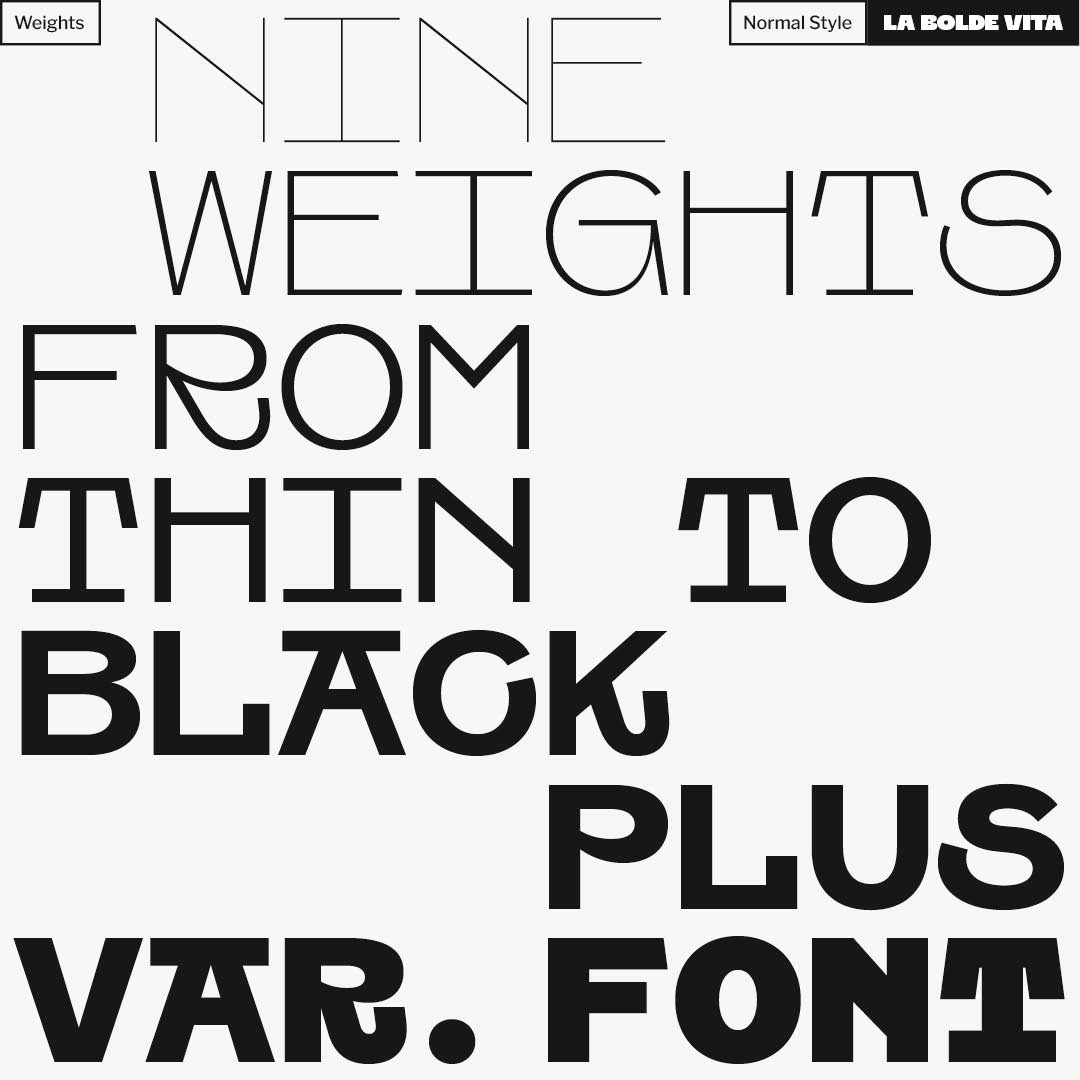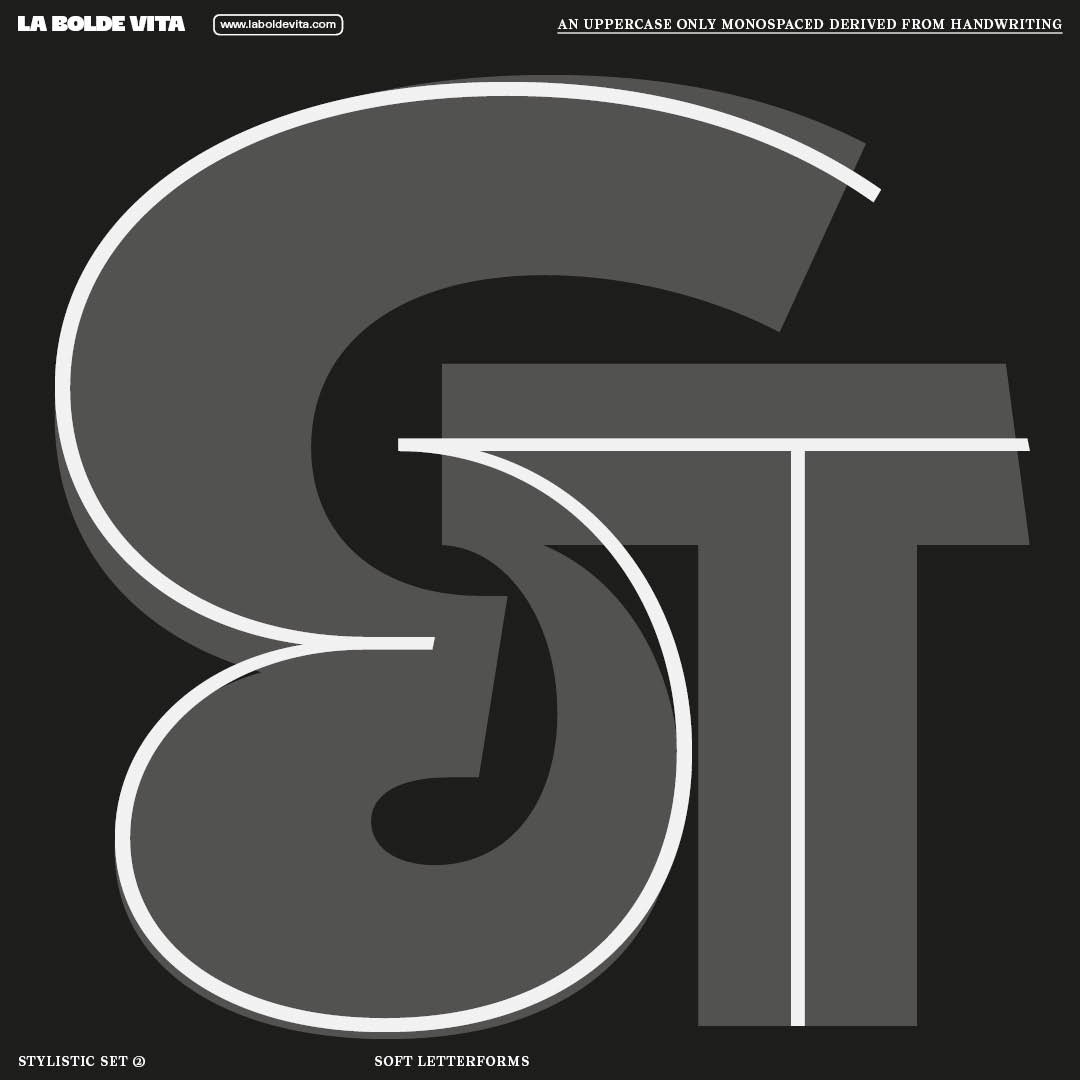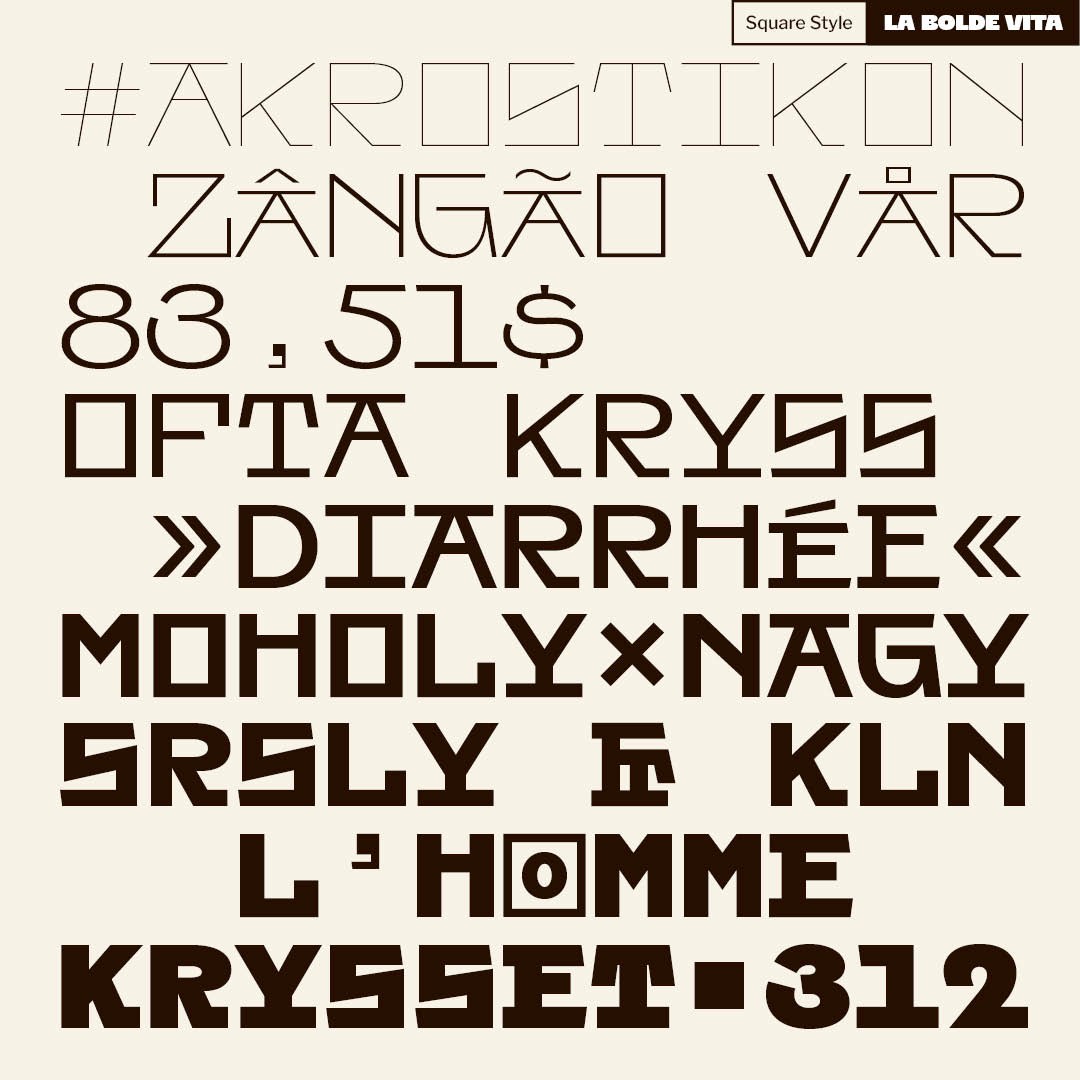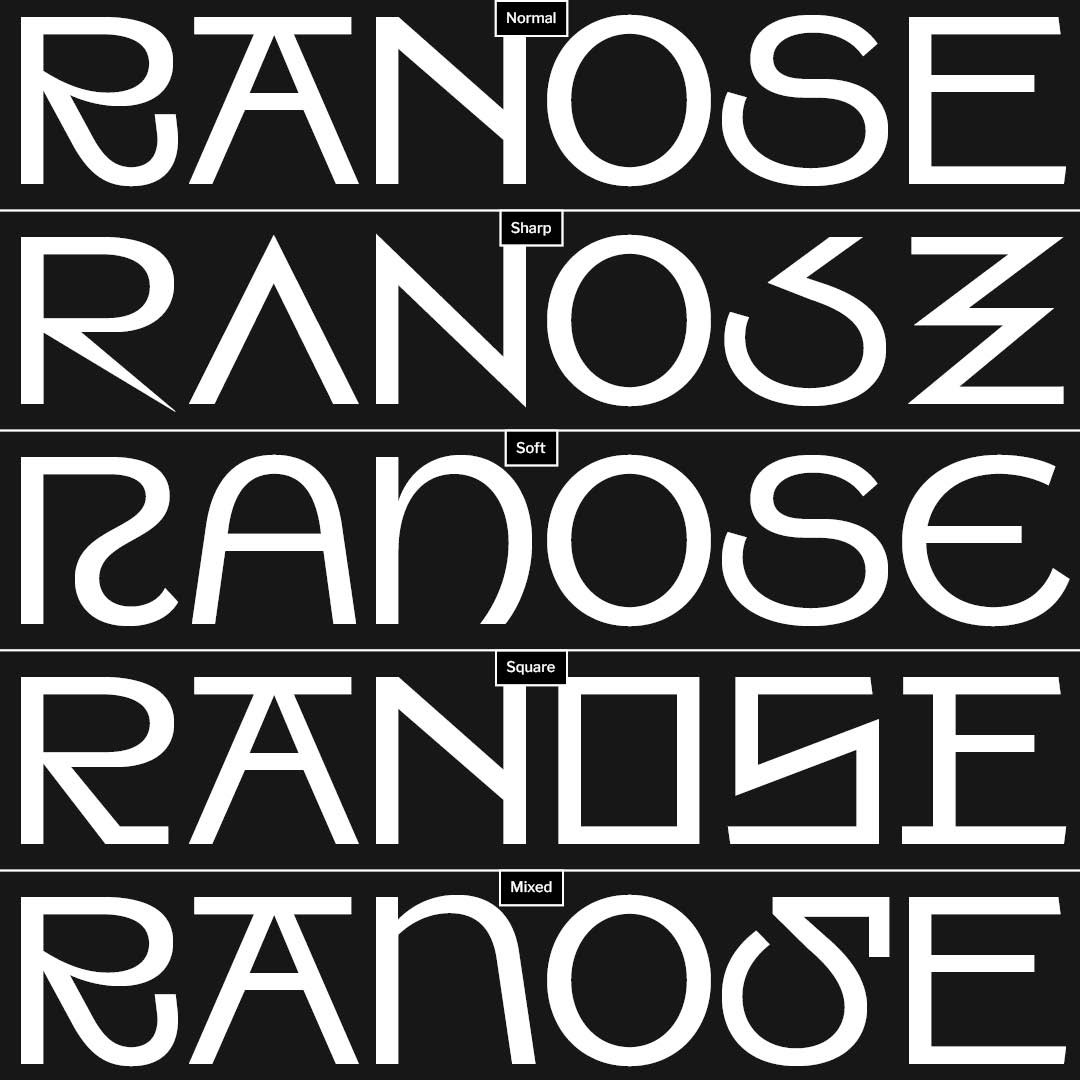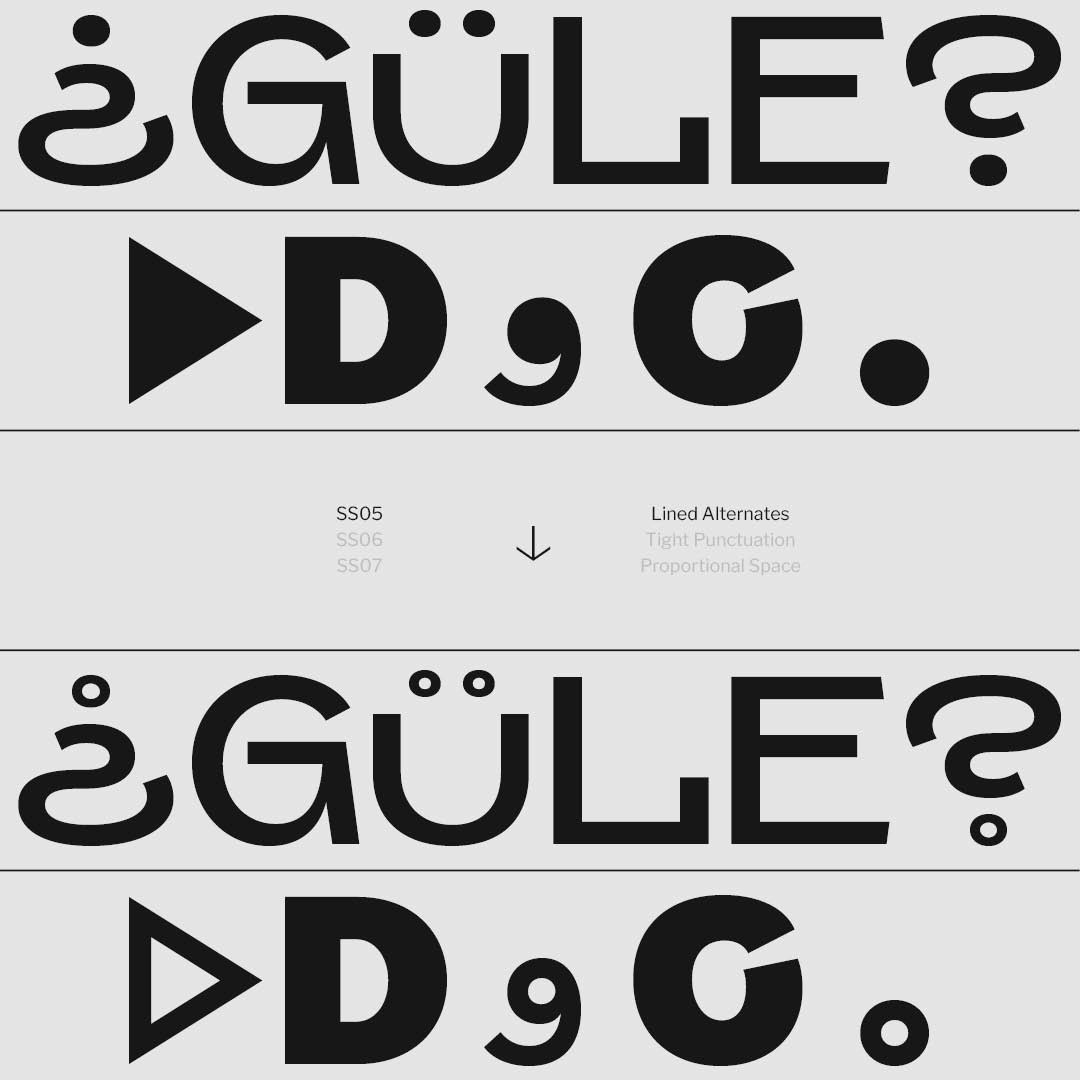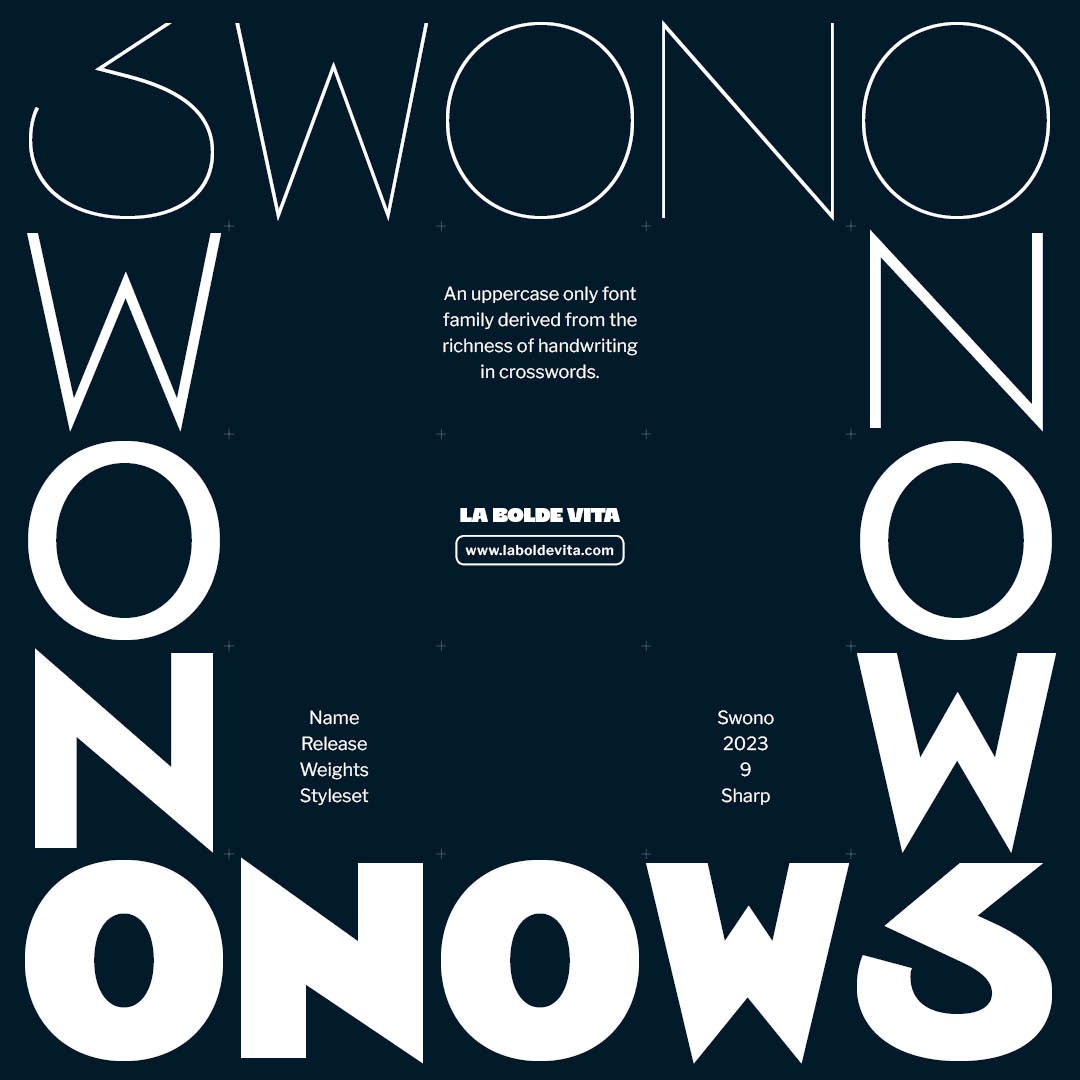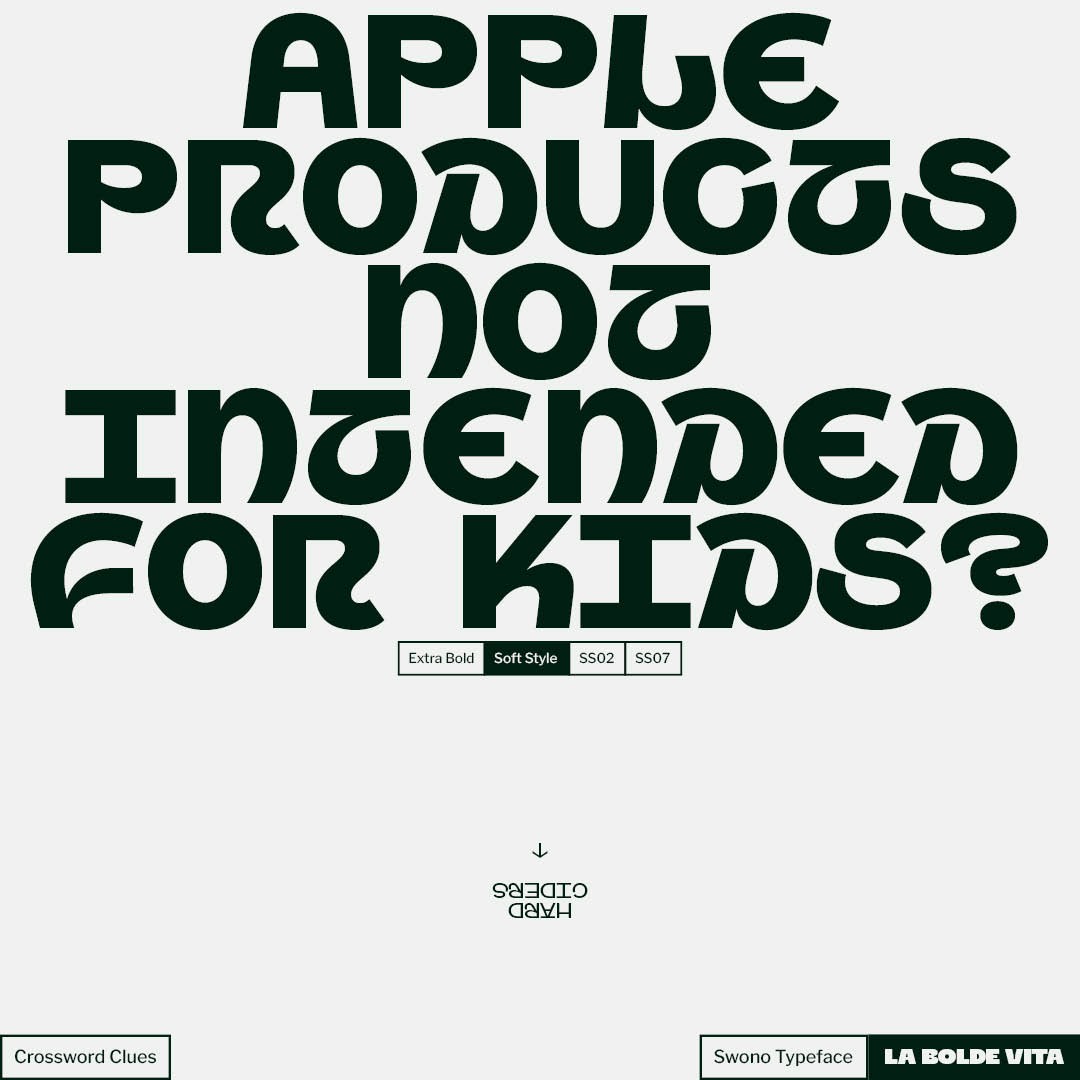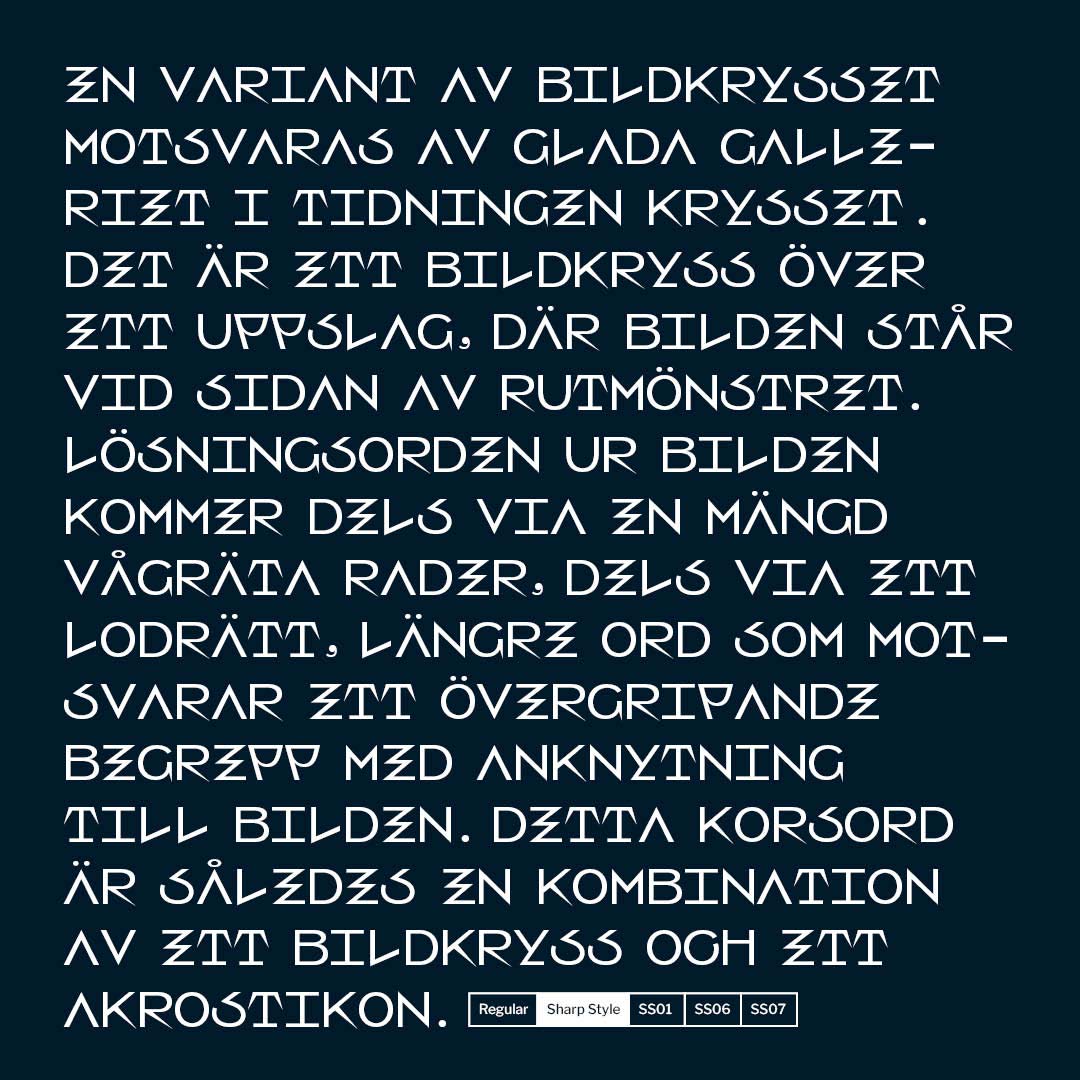
Evolving from the richness of handwritings taken out of crosswords, Swono is an uppercase-only monospaced family with various faces and a playful mood.
By collecting, examining and evaluating different sources of completed crossword puzzles, interesting letterforms and peculiarities of the handwritings came to light. These were then categorized, supplemented and unified. The results were then combined into a font family and can now be selected by defined stylesets — changing the cheerful base to a softer, more angular, more aggressive or more complex aesthetic.
Swono is a display typeface from head to toe. Its additional stylesets allow an extremely tight set despite accents or enable proportional spaces. And the 9 weights, over 300 supported latin languages and more than 2100 characters make the type family an effective tool for posters, branding or any expressive design task.
Monospaced Grotesque
Released in 2023
9 weights
5 different flavours
2125 Glyphs
Latin AF
Swono
All styles of the Swono family come in 5 different visual flavours, accessible via stylesets. Besides that you get some handy and decorative features — lined alternates, tight punctuation, contextual alternates and more.
11 STYLISTIC SETS
Circled/squared numbers
Tight Punctuation
Lined alternates
Swono comes with a massive amount of 2125 glyphs – covering the Latin AF (including Latin Extended-A Unicode Range), 4 alternative styles, tight uppercase variants, various figure styles and a range of symbols.
Thanks to the coverage of the Latin-Extended-A Unicode range, the Swono family supports almost all modern Latin languages. Actually, completing our own Latin AF Characterset containing some additional accented glyphs, you can set text in 302 languages, including Vietnamese. If you still think your language isn’t supported, you can look up the full list below or in the specimen.